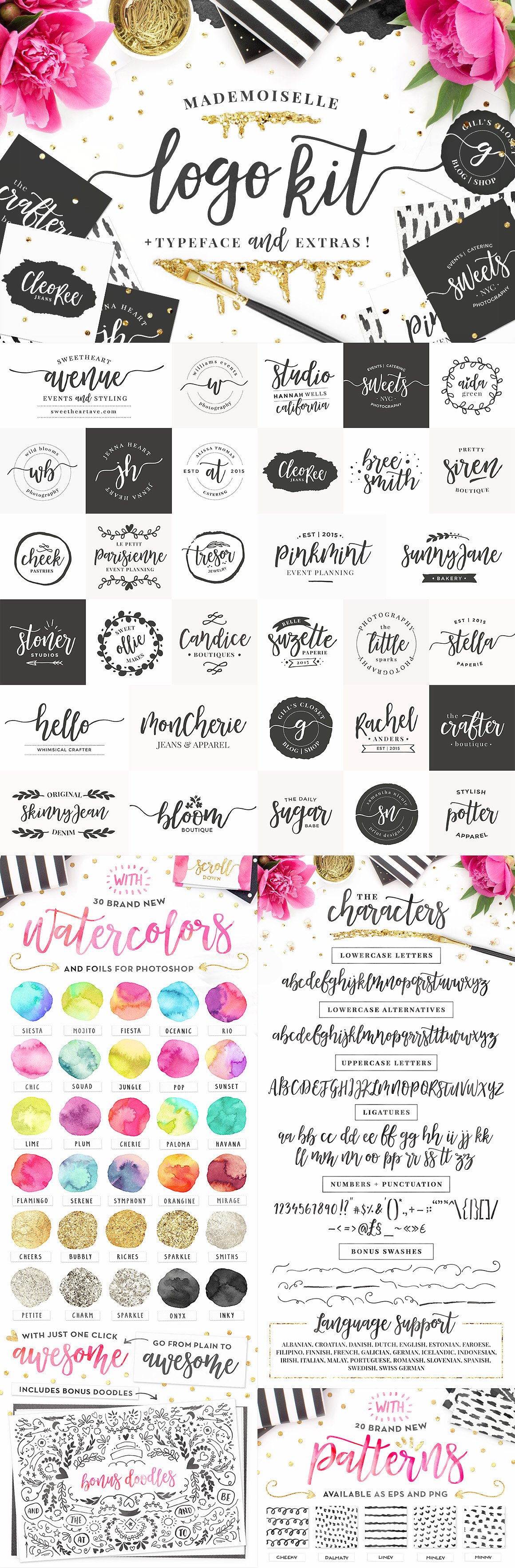
Mademoiselle
Mademoiselle Script Font
MADEMOISELLE TYPEFACE This charming, bouncy script font comes in both .otf and .ttf files and international language support. I’ve also included a whole set of lowercase alternates, ligatures and as a sweet bonus, an all swash font to mix and match. Wanna see more? Check the previews to see all the characters, symbols and supported languages. 🙂